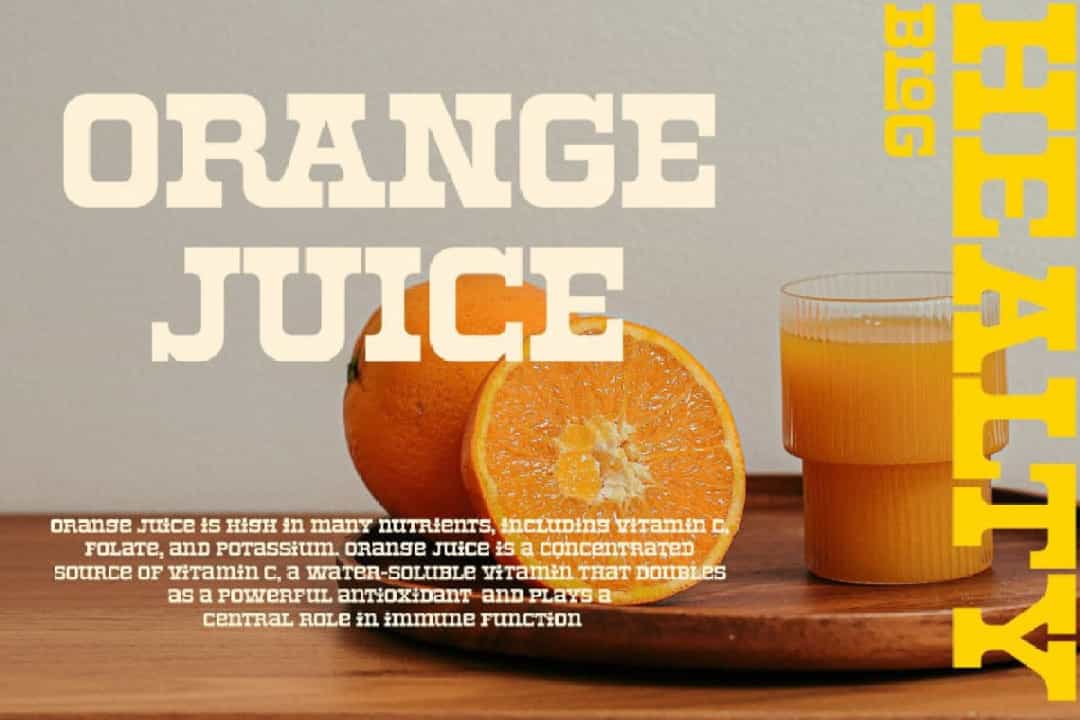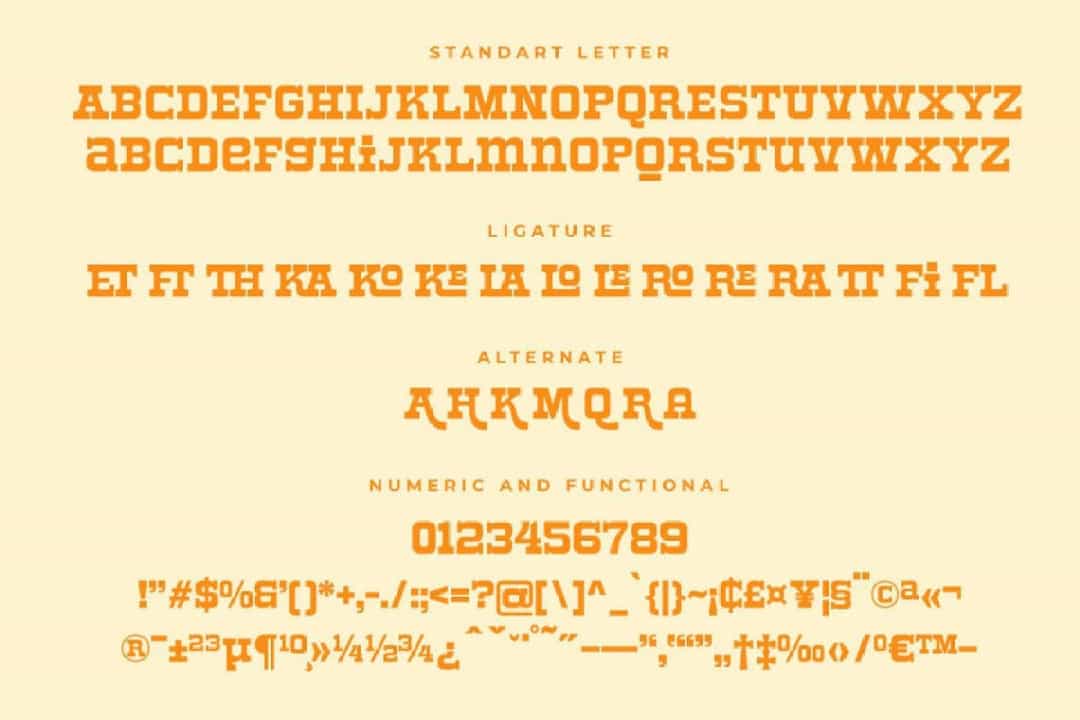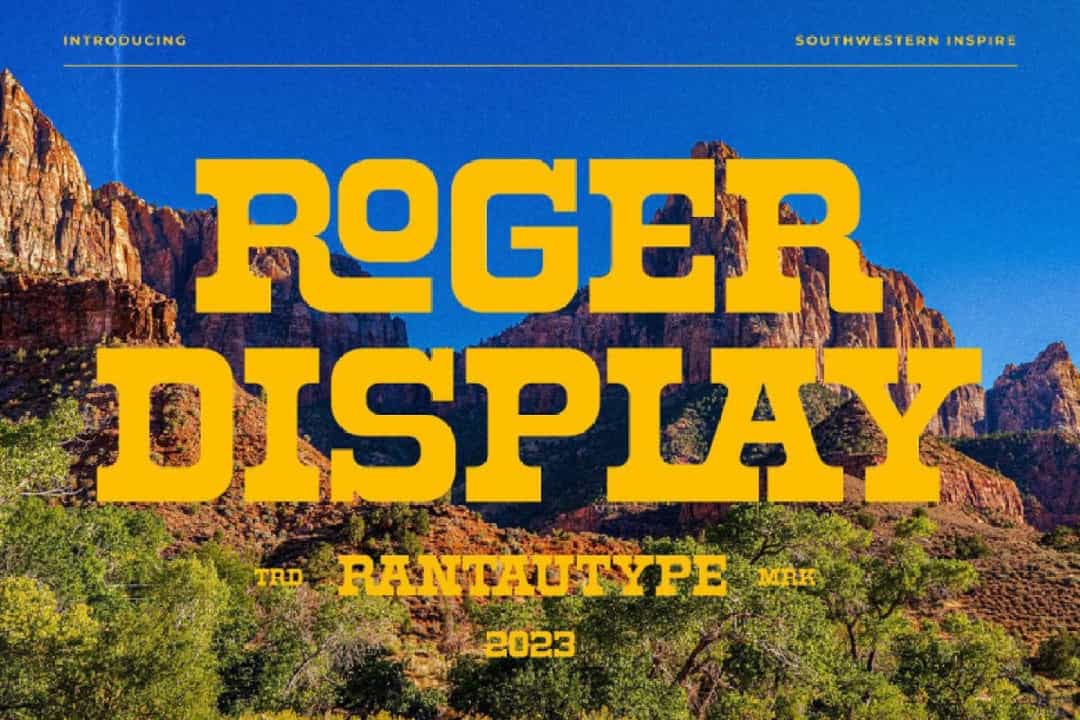
Roger Display It is an exquisite slab serif display font inspired by the midcentury southwestern aesthetic. This classic yet modern font offers additional ligature and alternates for further customizability – perfect for creating contemporary or retro designs alike!